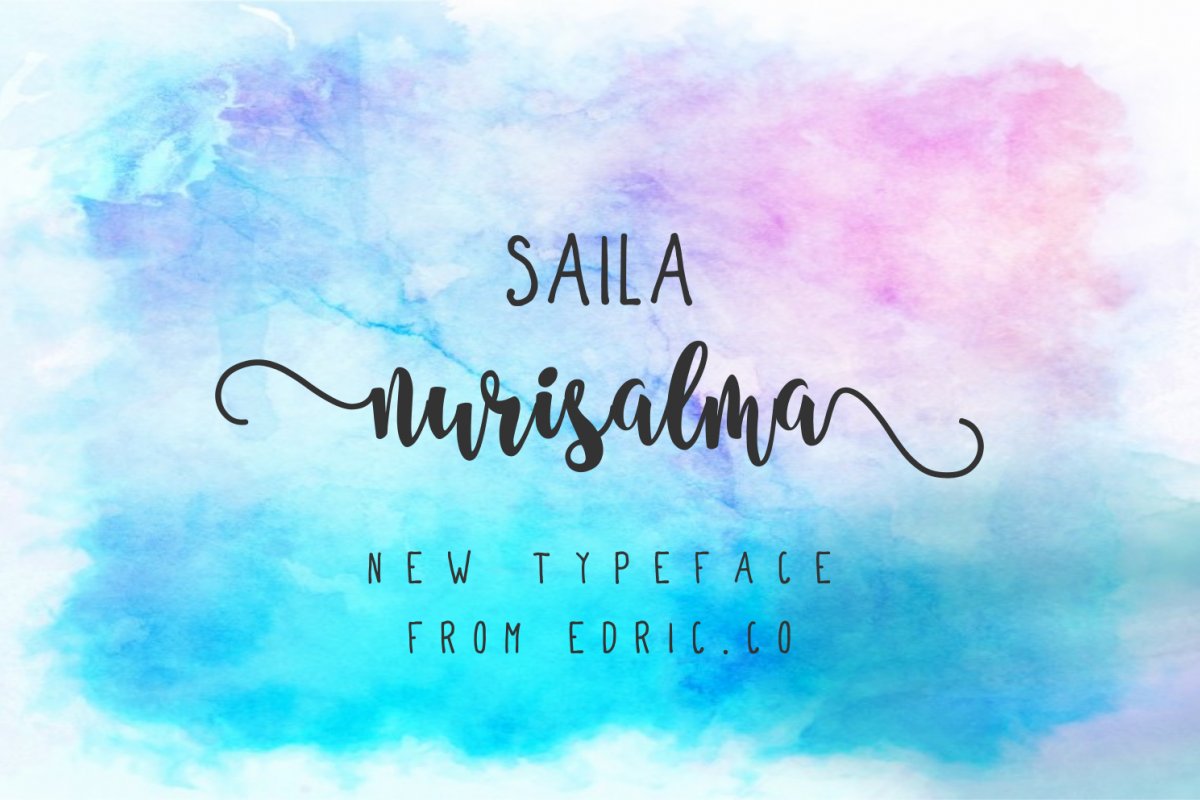
Saila Nurisalma
Saila Nurisalma – Two fonts with different styles. One : Handwriting script font Two : A look like sans fontAll the two, made by hand, with love from Indonesia.